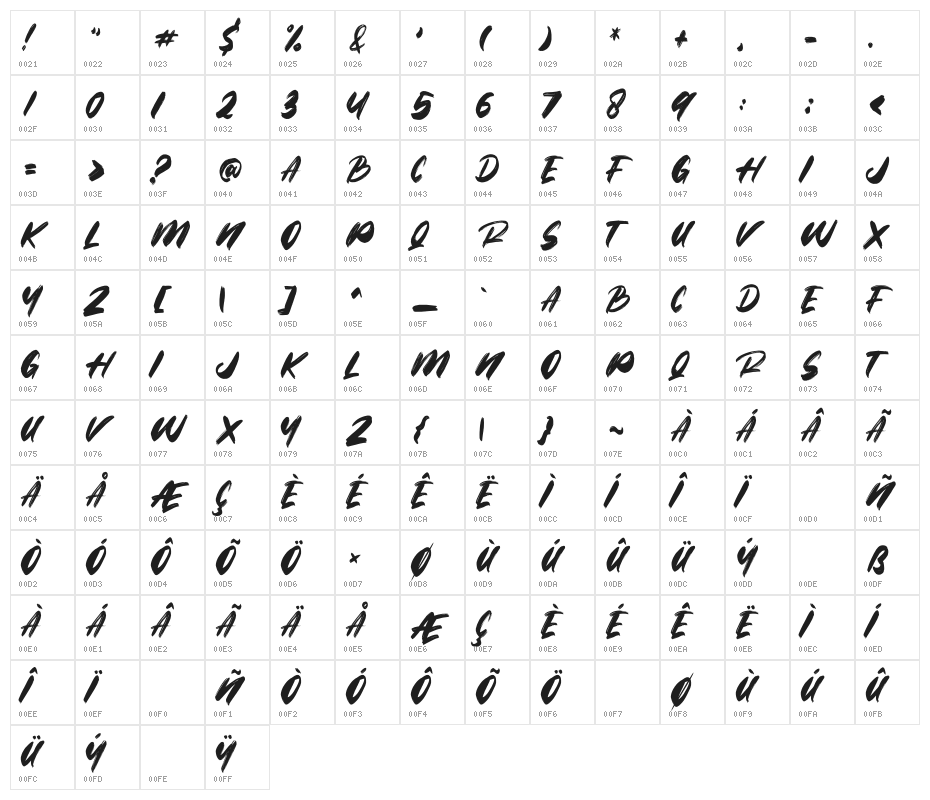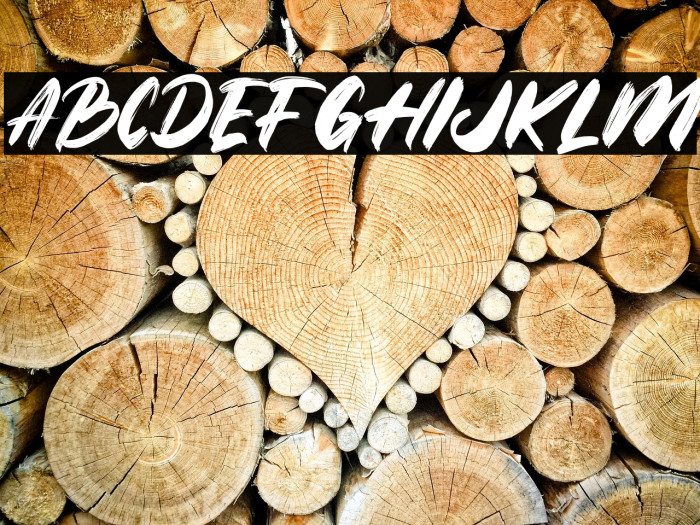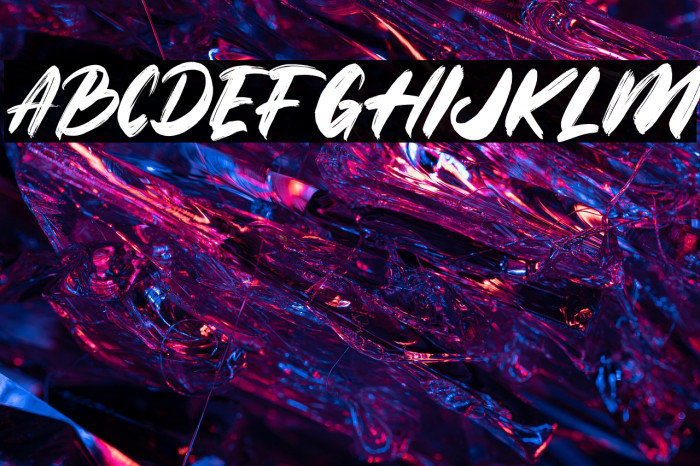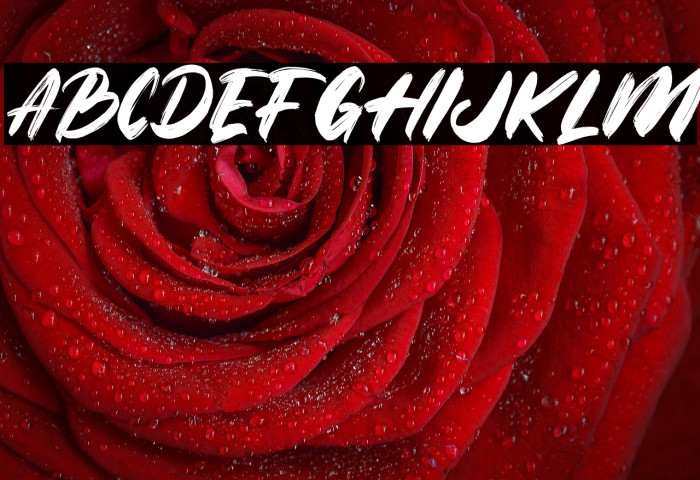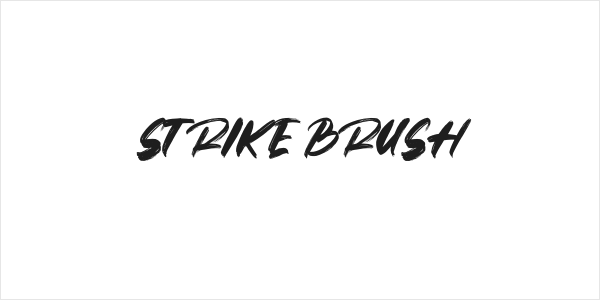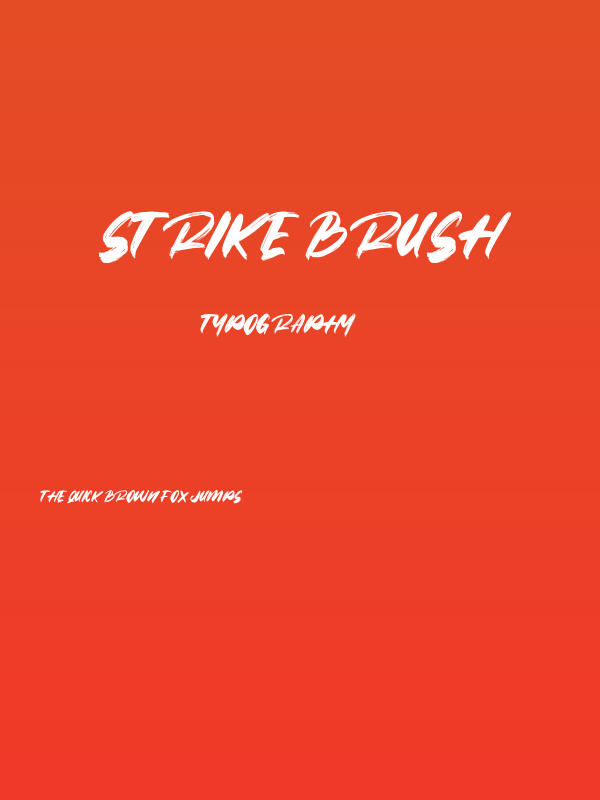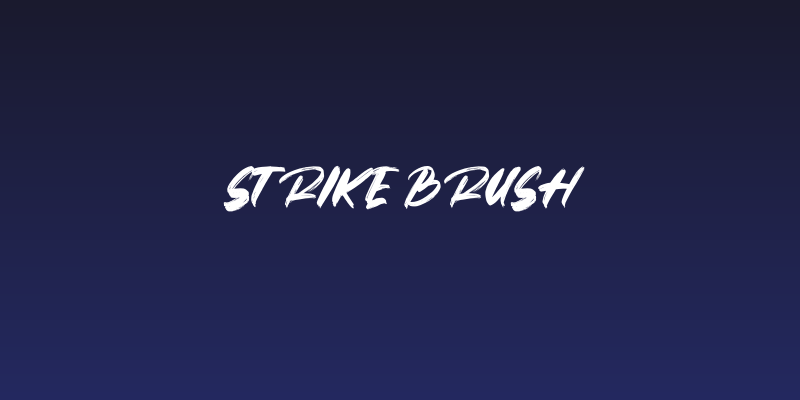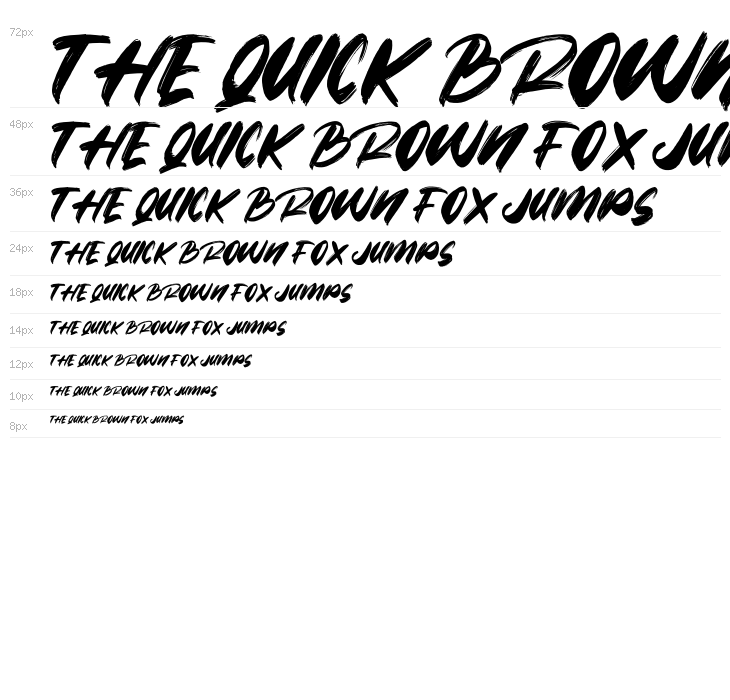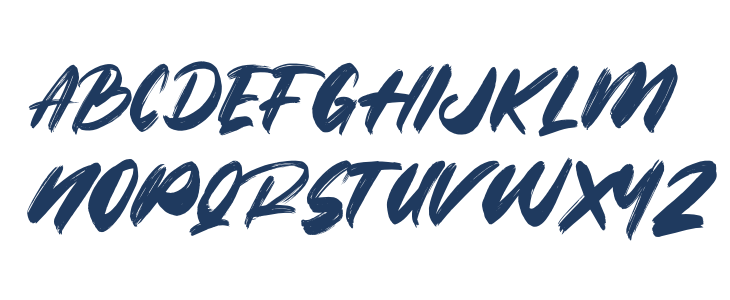
Strike Brush Font
Strike Brush Description
This font exudes a dynamic and energetic feel, characterized by its bold and expressive brush strokes. Each character appears as if it has been painted with a swift, confident hand, giving it a sense of movement and fluidity. The strokes are thick and vary in width, creating a high contrast that enhances its visual impact. The edges are slightly rough, adding a touch of authenticity and rawness. This style is reminiscent of street art or graffiti, making it ideal for projects that require a bold statement or an artistic flair. The uppercase and lowercase letters maintain a consistent style, ensuring readability while still offering a unique aesthetic.
| Overall Style | Modern, Artistic |
| Proposed Projects | Ideal for branding, posters, album covers, and any design needing a bold, artistic touch. |